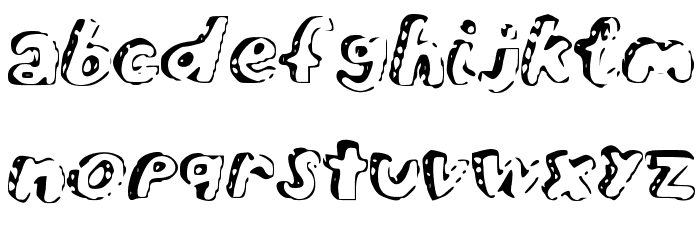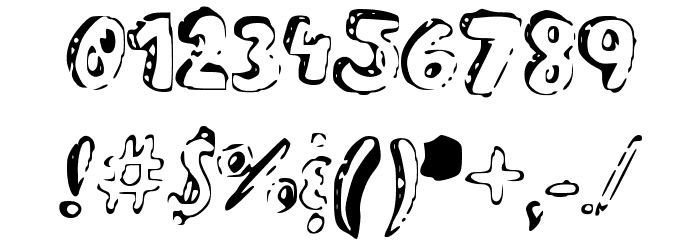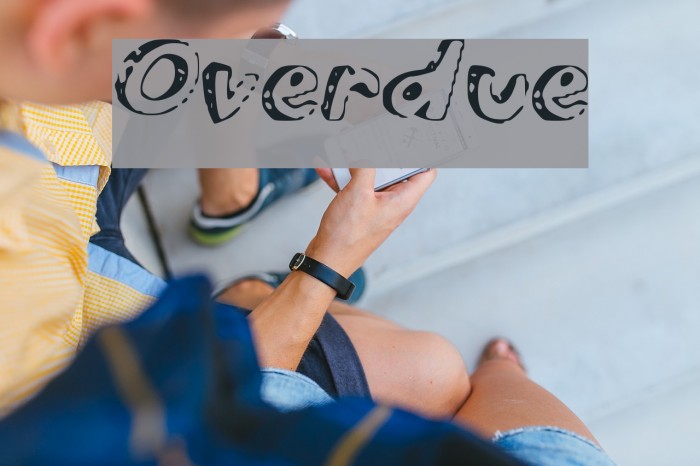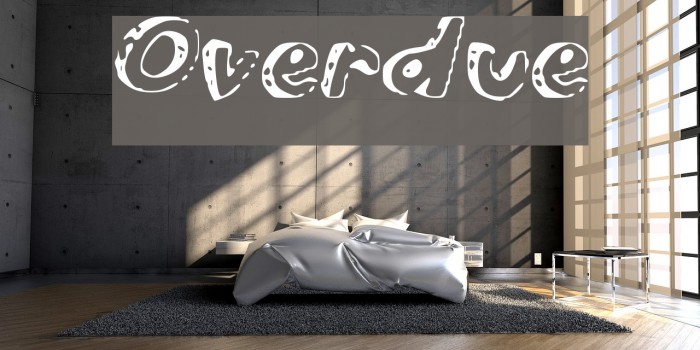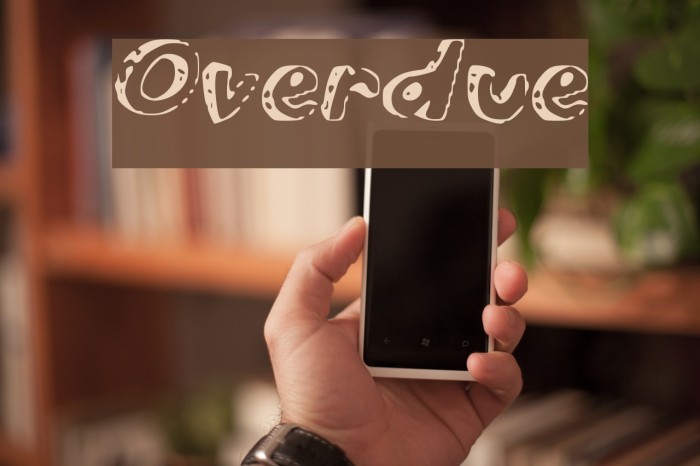
Overdue Font
This font features a bold and playful style with a unique distressed texture that gives it a dynamic and energetic appearance. The characters are rounded and slightly irregular, adding a sense of movement and whimsy. The uppercase and lowercase letters maintain a consistent style, while the numbers and special characters complement the overall design. The font's boldness and texture make it stand out, perfect for projects that require a fun and eye-catching look.
A bold, playful font with a distressed texture and rounded, irregular characters.
- Proposed Projects: Ideal for children's book covers, playful branding, event posters, and creative packaging designs.
- Overall Style: Playful, Energetic